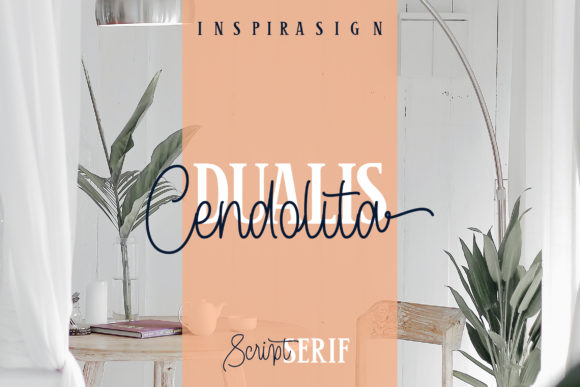
Unleash the vibrancy of Cendolita Duo Font, a captivating font family that breathes life into your creative projects. Inspired by the allure of classic posters, Cendolita presents a striking serif and an elegant script version, harmonizing together to create a visual feast.
With its bold and distinct serif, Cendolita exudes a sense of authority and tradition, while the flowing script dances alongside, adding a touch of grace and finesse. This dynamic duo offers endless possibilities for self-expression, whether you're crafting logos that demand attention, letterheads that leave a lasting impression, or posters that ignite the imagination.
Step into the world of Cendolita and let your creativity soar. Its versatility knows no bounds, seamlessly adapting to a myriad of design endeavors. Elevate your apparel designs with a touch of timeless charm, create eye-catching labels that demand attention, or let your imagination run wild as you craft unique invitations and greeting cards. The possibilities are as limitless as your creativity.
Cendolita Duo Font is a symphony of visual delight, a font family that captivates and enchants. Its ability to blend classic elegance with a modern twist makes it an essential tool for any designer seeking to make a statement. Unleash the power of Cendolita Duo and embark on a creative journey that will leave your audience spellbound.